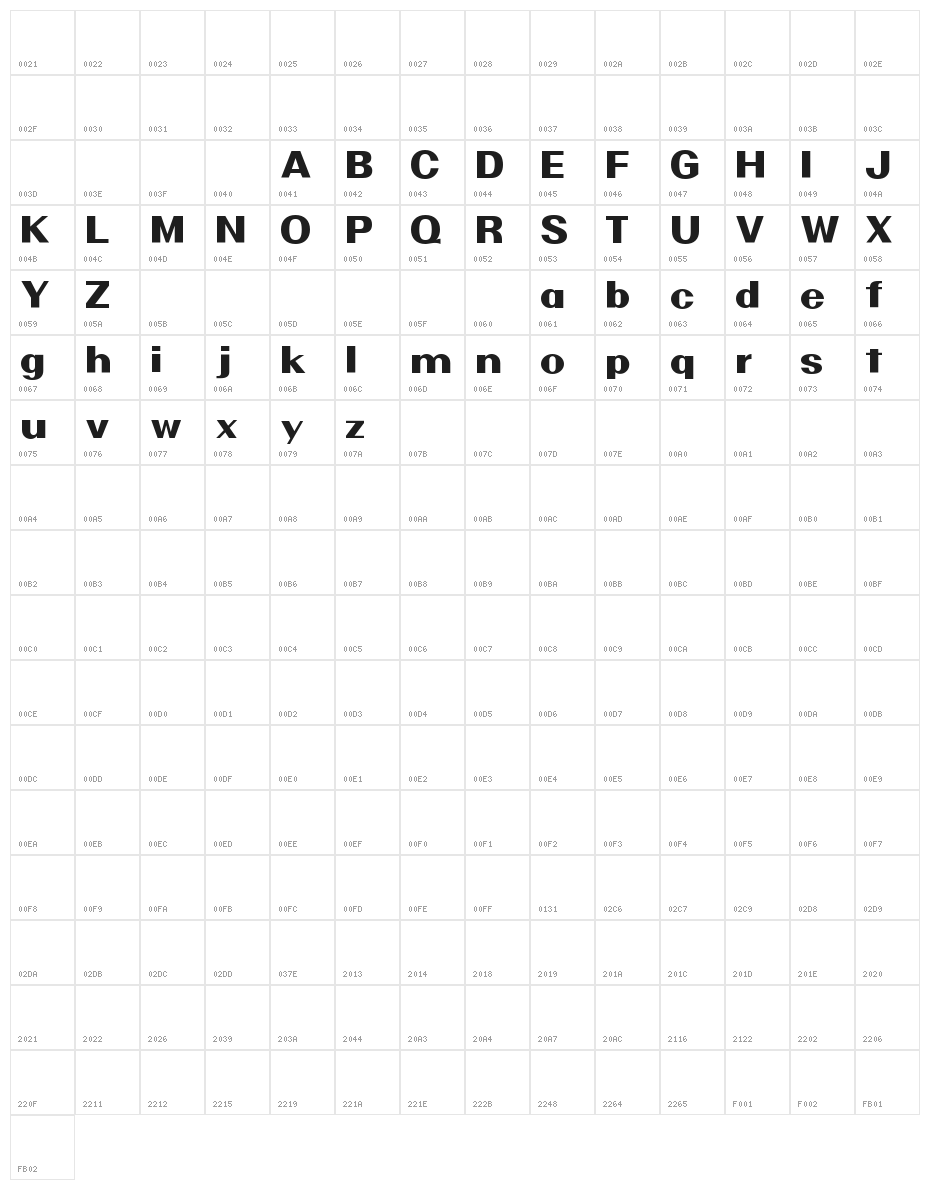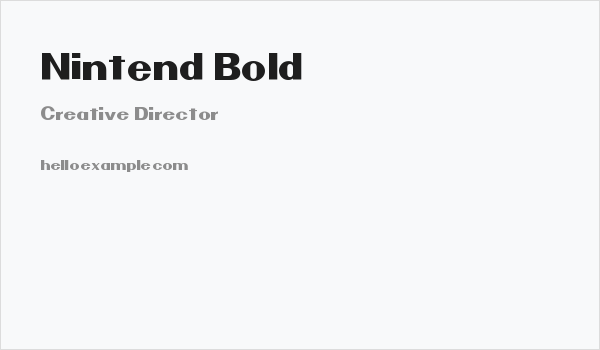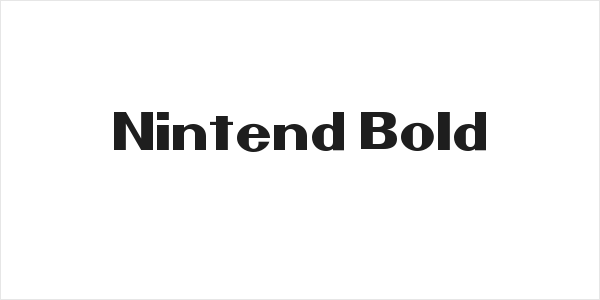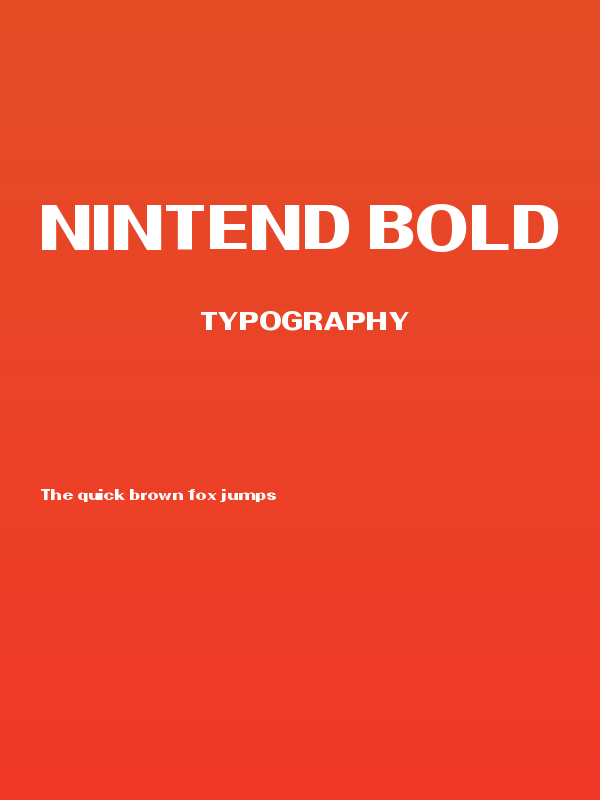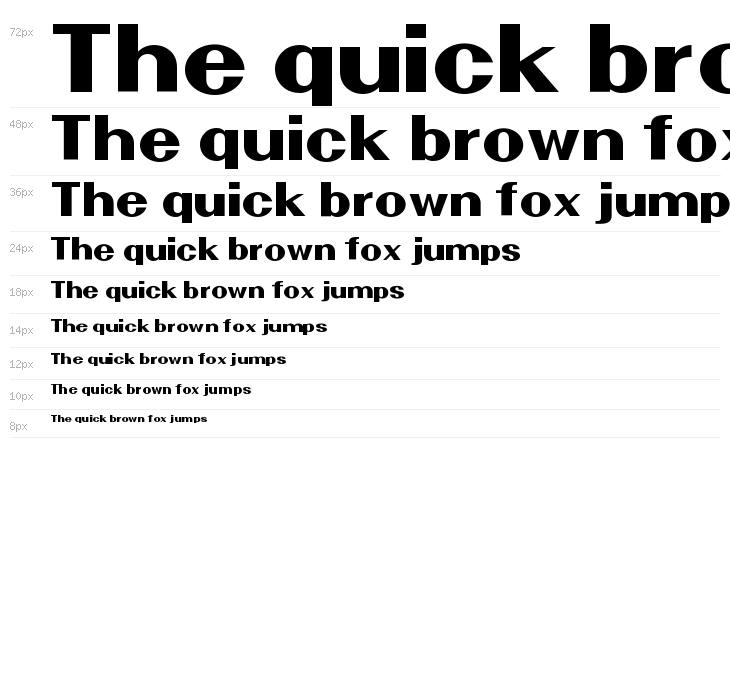
Nintend Bold Font
Nintend Bold Description
This bold, sans-serif typeface features strong, clean lines and a modern aesthetic. The characters are uniformly thick, providing a robust and impactful appearance. The uppercase letters are particularly striking, with a consistent height and width that convey a sense of stability and strength. The lowercase letters maintain the same boldness, ensuring readability and visual harmony. The numbers are clear and straightforward, matching the overall bold style. Special characters are designed with the same attention to detail, ensuring they integrate seamlessly with the rest of the typeface.
Proposed ProjectsIdeal for branding, headlines, posters, and any project requiring a bold, impactful typeface.